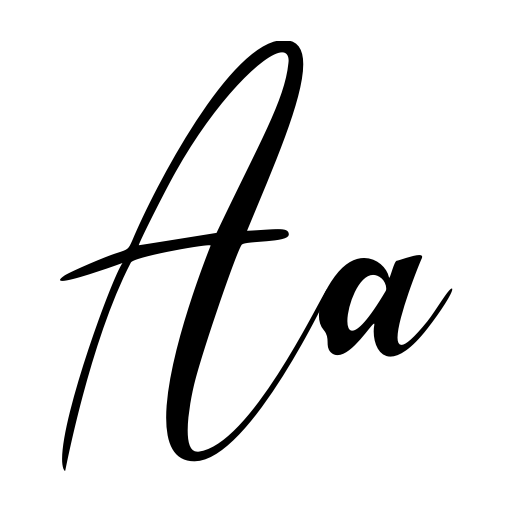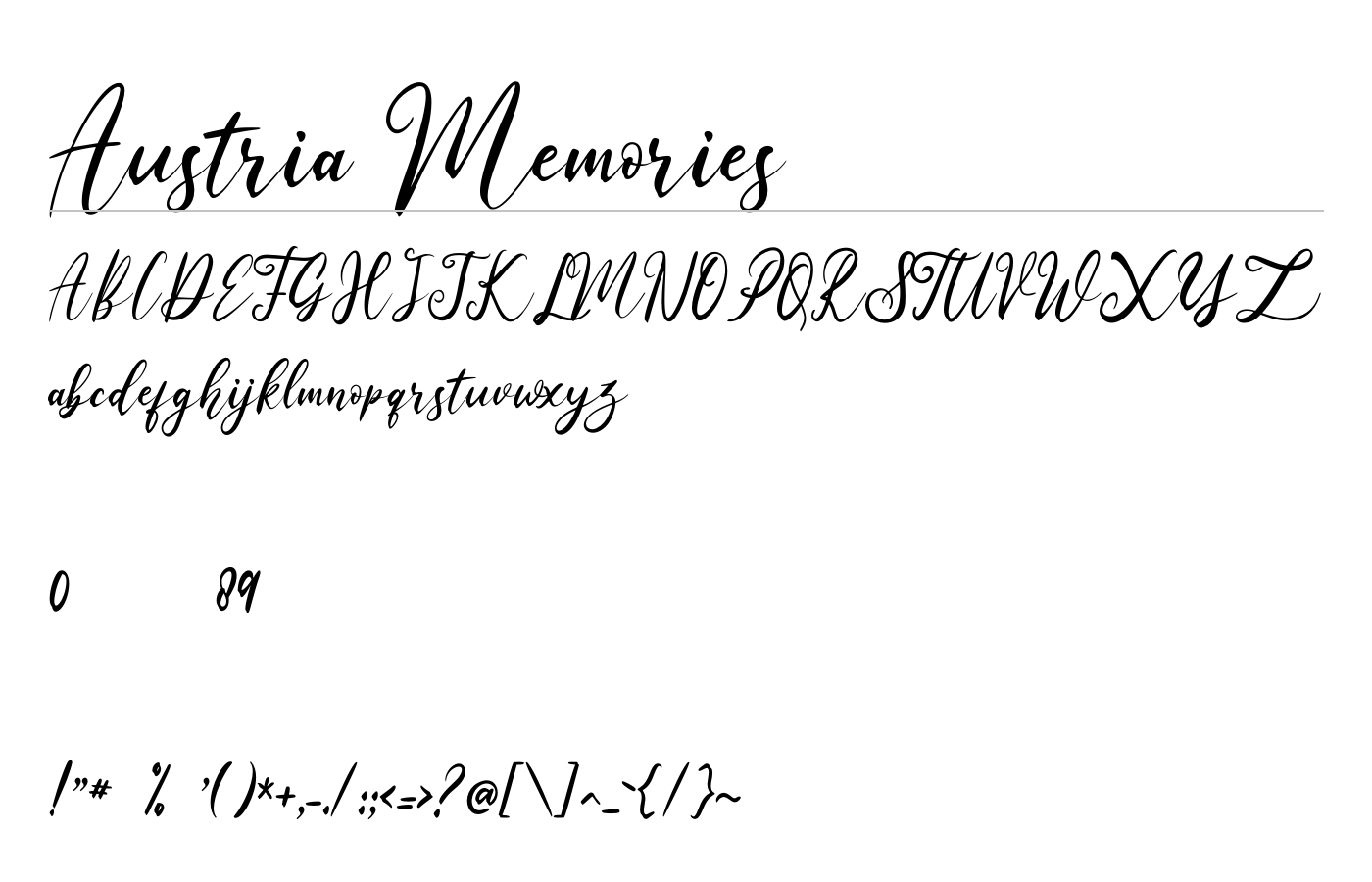
Austria Memories is an elegant script font with a flowing, handwritten style that combines graceful thin strokes with smooth, fluid curves. Its slender letterforms and refined details give it a sophisticated and artistic feel, making it ideal for romantic branding, invitations, and stylish editorial projects. This font’s delicate balance between classic calligraphy and modern flair makes it perfect for adding a personal, luxurious touch to any design.
Austria Memories Font
About Austria Memories Font